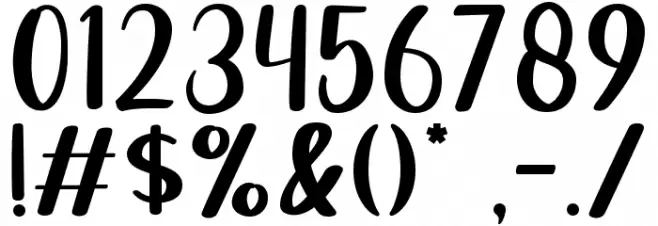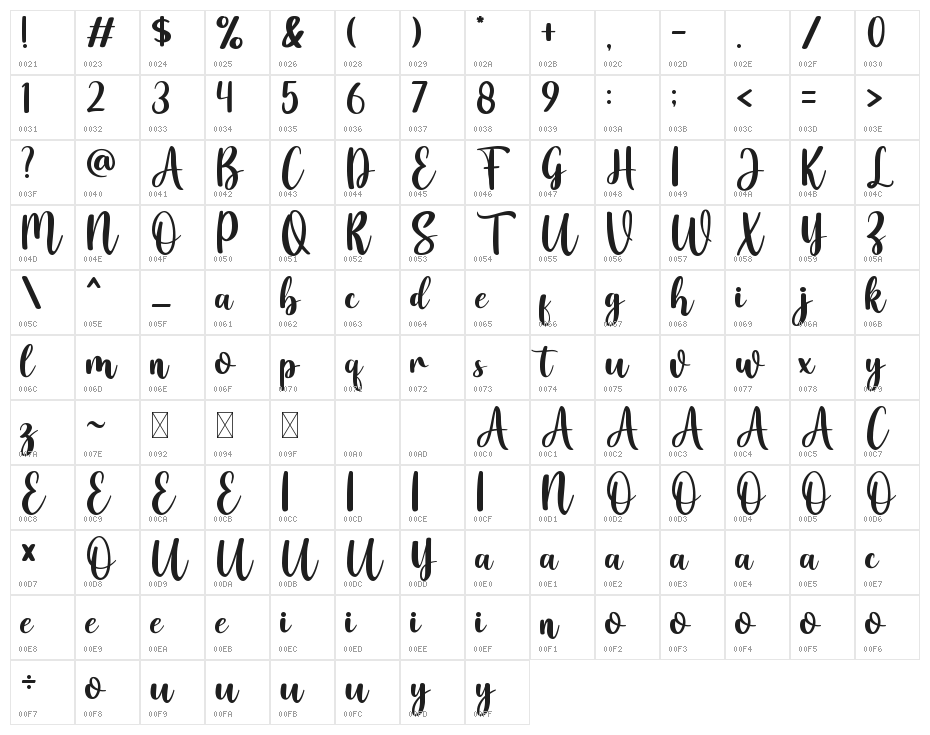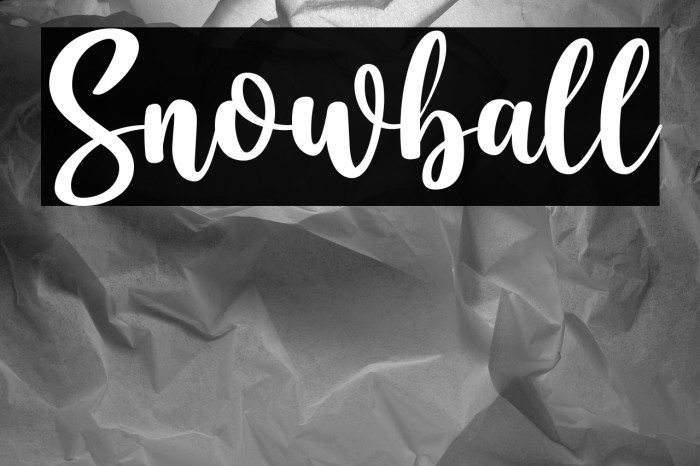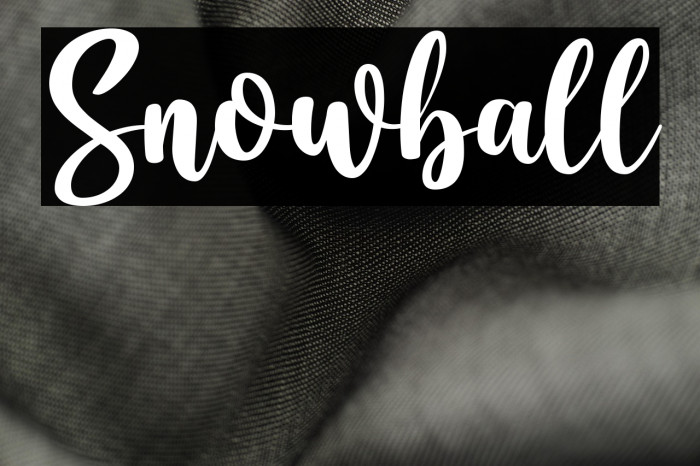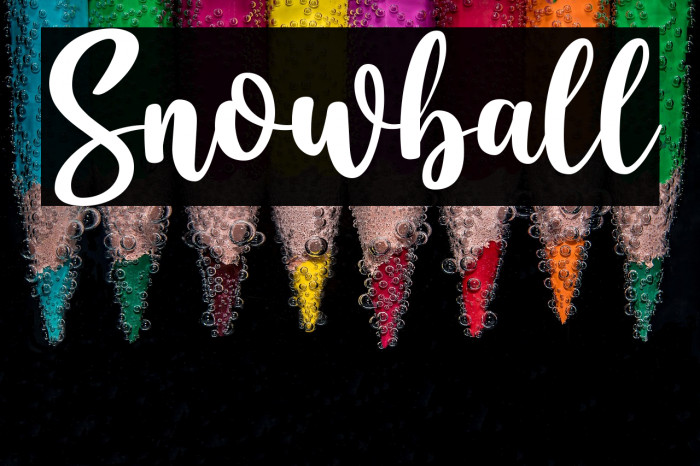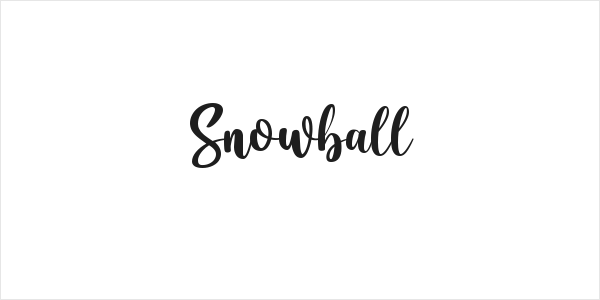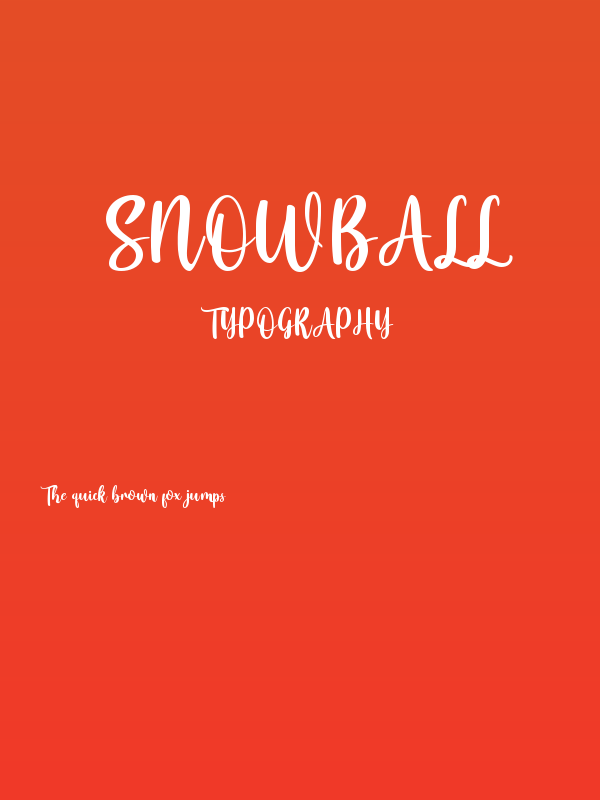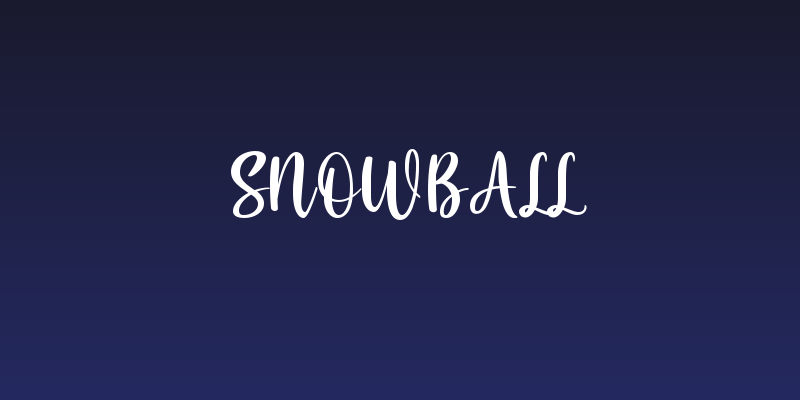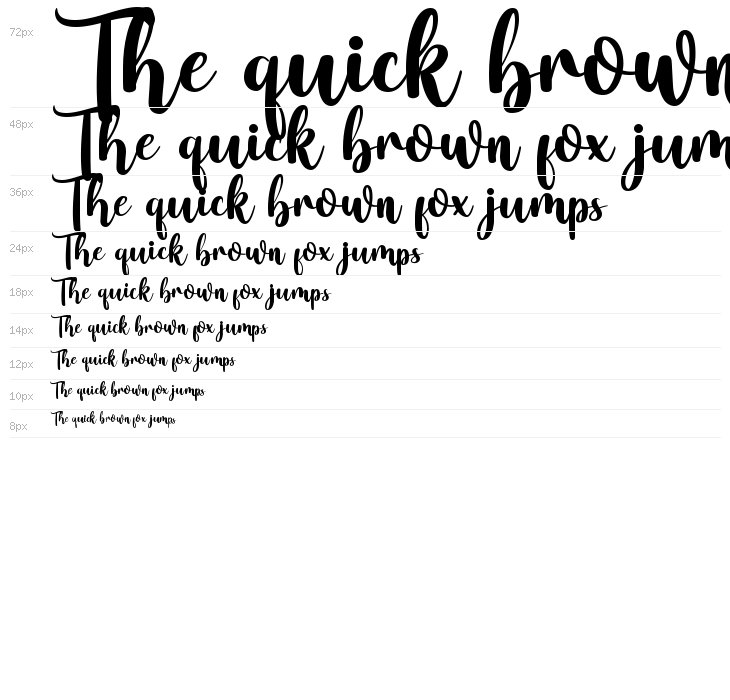
Snowball Font
Snowball Description
This font features a playful and flowing script style, characterized by its smooth, cursive letterforms that exude a sense of elegance and whimsy. The uppercase letters are bold and prominent, with a slight slant that enhances their dynamic appearance. The lowercase letters maintain a consistent flow, with rounded edges and a harmonious connection between characters. The numbers are equally bold, ensuring readability while maintaining the font's overall aesthetic. Special characters are designed with the same fluidity, integrating seamlessly with the alphabet. This font's design is perfect for projects that require a personal touch, combining both sophistication and approachability.